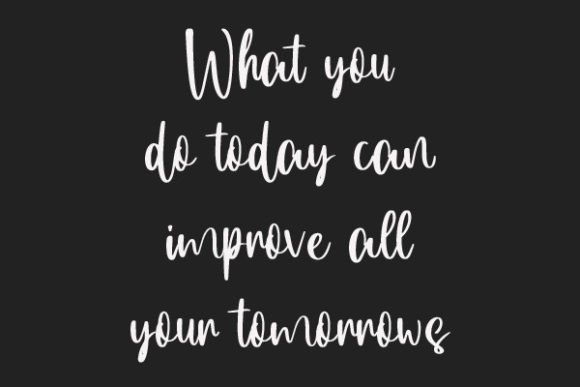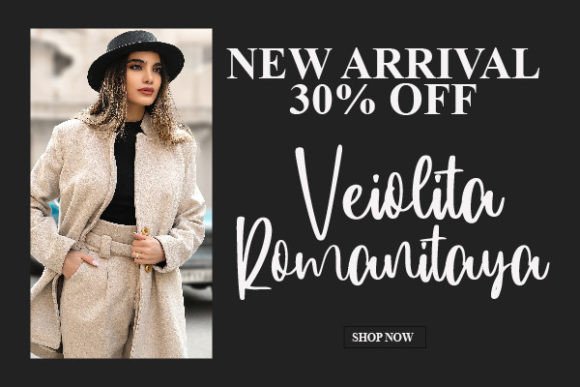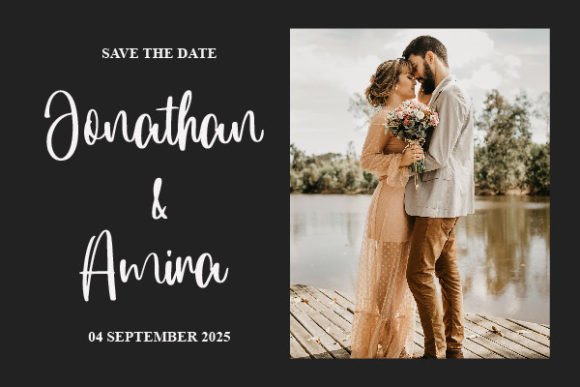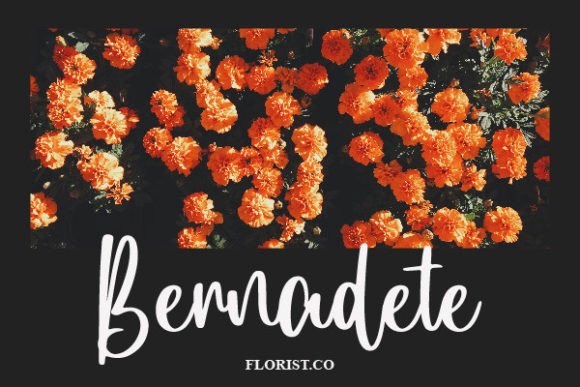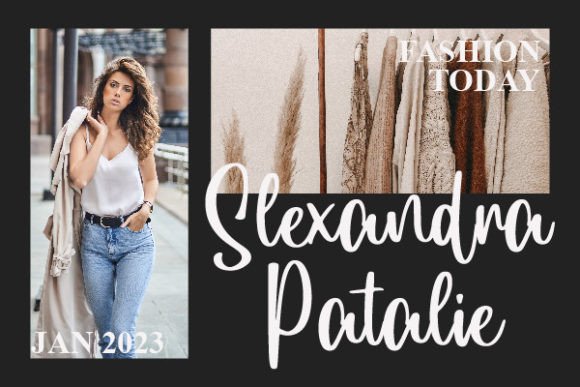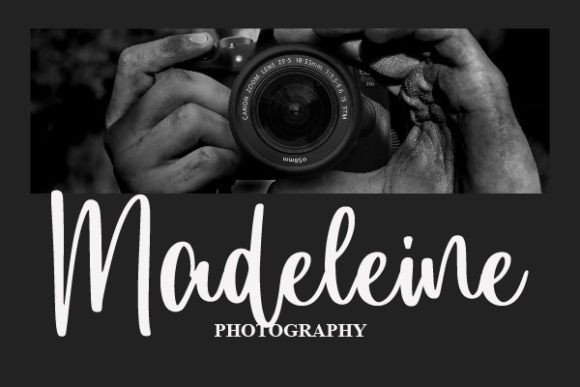
Introduction to Pamela Susanna Font
Pamela Susanna is a script font that is an elegant and luxurious choice, with beautiful curves and an inviting feel.
Perfect for adding a touch of class and refinement to any project .
Key Features of Pamela Susanna Font